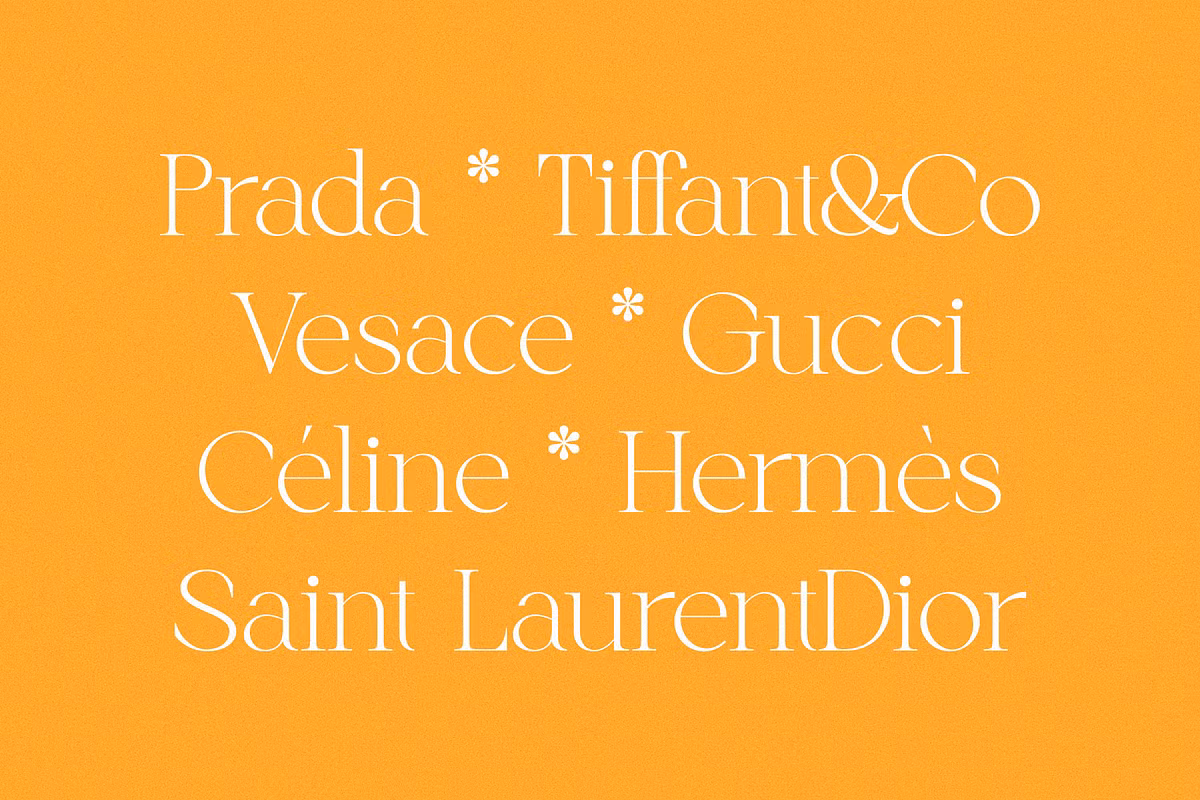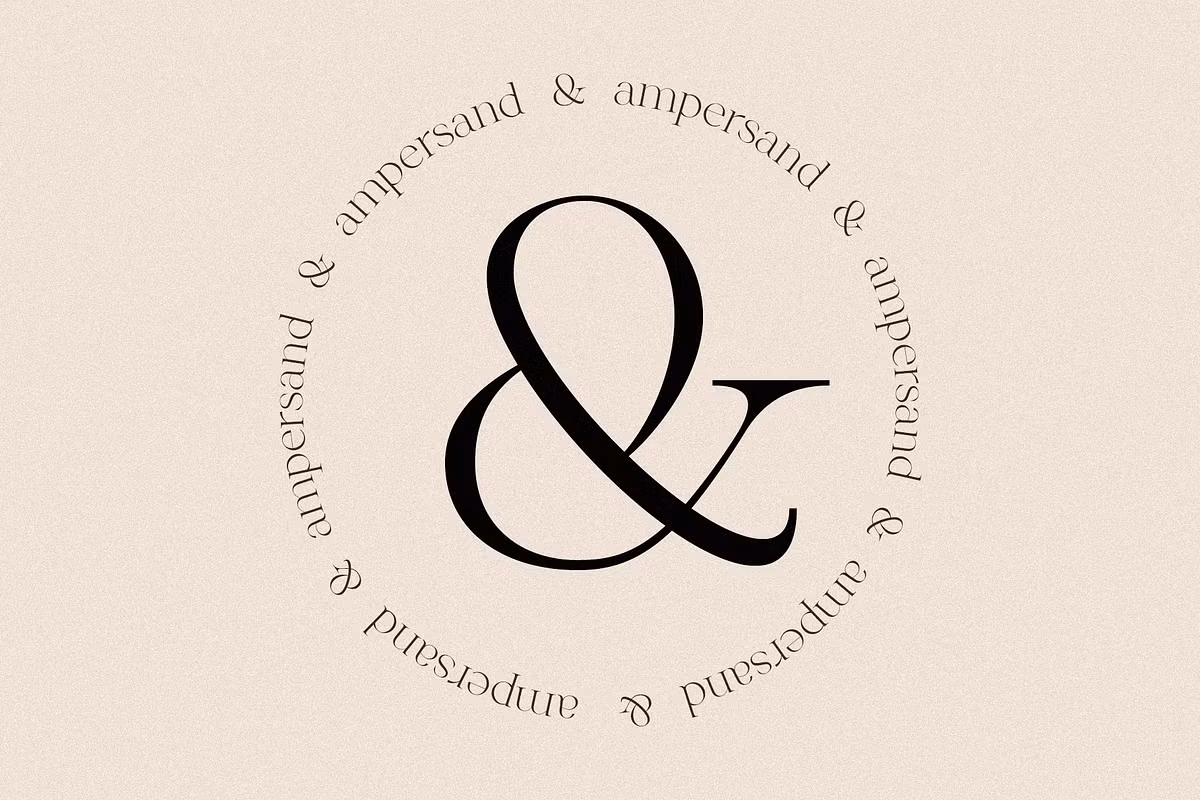
Seville: Elegant Editorial Serif Typeface for Modern Design
Seville - Summer Editorial Serif
Seville: Elegant Editorial Serif Typeface for Modern Design
Seville is a beautiful serif font that captures the feeling of warm summers and relaxed afternoons. It’s a classic design with a modern twist, making it perfect for lots of different projects. The font has a timeless quality to it, but it also feels fresh and new. This balance of old and new makes it a great choice for designers who want to add some elegance to their work. Whether you’re working on a magazine, a book, or a website, Seville is a versatile font that can help you create something truly special. Its unique blend of traditional and contemporary elements makes it stand out from other fonts, and its warm, inviting feel is sure to resonate with audiences. Overall, Seville is a refined and sophisticated font that’s perfect for anyone looking to add a touch of southern charm to their design.
Elegant serif font showcasing modern design elements
The elegant design of Seville enhances modern projects.
Design Style of Seville
The city of Seville’s design is notable for its bold strokes and striking serifs, which give it a sense of confidence and authority. This makes it a great choice for editorial work, as it grabs your attention without being overwhelming. At the same time, the gentle curves and lines in Seville’s design add a touch of warmth, making it easy to use in a variety of different contexts. Whether you’re working on a magazine, a book, or a website, Seville’s design is versatile enough to fit in seamlessly. Its unique blend of strong lines and soft curves creates a sense of balance and harmony, making it a great choice for anyone looking to add a touch of sophistication to their design. With its classic feel and modern twist, Seville’s design is sure to make a lasting impression.
Seville’s style is made even more beautiful by mixing old and new elements. This mix lets designers create a feeling of elegance without making the text hard to read. The font is great for projects that need a touch of emotion and personality, making it perfect for magazines, branding, and telling long stories. It’s a way to add romance and flair to your design, while still being easy to understand.
Character Sets and Glyphs
Seville is a great choice for designers because it has a wide range of characters that can be used in many different languages and design projects. It includes all the usual letters, numbers, and symbols, so you can use it for just about anything. What’s really impressive about Seville is that it has more than 300 glyphs, which gives designers a lot of flexibility and options to work with. This means that whether you’re working on a simple project or something more complex, Seville has the tools you need to create a unique and effective design. With its comprehensive character set and rich typographic possibilities, Seville is a versatile typeface that can meet the demands of a wide range of design applications.
Character sets and glyphs of the Seville typeface
Seville’s extensive glyph set enhances design flexibility.
Seville also has ligatures, which make your text look even more beautiful. These ligatures help make your designs look more polished and easier to read. Plus, Seville supports many languages, so it’s great for brands or publications that need to reach people all around the world. This means you can use Seville to create things that look amazing, no matter where your audience is from. With its elegant look and global reach, Seville is a fantastic choice for anyone who wants to make a good impression. Whether you’re working on a project that needs to appeal to people in different countries, or you just want to add some extra style to your text, Seville is a great option. Its ligatures and multilingual support make it a powerful tool for creating beautiful, effective designs.
Use Cases for Seville
Seville is particularly well-suited for a variety of design applications. Here are some prominent use cases:
• Magazines: Its elegant and sophisticated style makes Seville perfect for editorial layouts, where it can guide readers through engaging stories and captivating visuals.
• Branding: Brands that seek to convey a sense of refinement and approachability can benefit from Seville’s warm details and strong presence, making it ideal for logos and marketing materials.
• Long-Form Storytelling: For written content that requires a refined touch, such as books or online articles, Seville enhances the reading experience while maintaining clarity and engagement.
• Wedding and Event Invitations: The romantic and expressive qualities of Seville make it an excellent choice for formal invitations, where elegance is paramount.
Examples of Seville used in various design applications
Seville is versatile for magazines, branding, and invitations.
Pairing Suggestions for Seville
When it comes to typography, pairing fonts can significantly enhance your design’s overall aesthetic. Seville’s unique characteristics allow it to pair beautifully with a variety of other typefaces. Here are some suggestions:
• When you put Seville with a simple, sans-serif font like Montserrat or Lato, it looks really modern and classy. This mix of fonts creates a nice contrast that’s easy to read and also looks fancy. It’s a great way to make your text look good and be easy to understand at the same time.
• When you want to give your design a softer, more romantic feel, think about combining Seville with a script font like Great Vibes or Pacifico. This pairing can really make your invitations and branding projects stand out, adding a touch of elegance and personality. It’s a great way to add some extra flair and make your design more expressive.
• Geometric Fonts: Fonts like Futura or Avenir can complement Seville’s elegance while providing a modern edge, making it suitable for contemporary design layouts.
Seville typeface adds elegance and sophistication to designs.
Seville is not just a typeface, it’s a way to add elegance and sophistication to your designs. The way it’s made, with high-contrast strokes and warm details, makes it perfect for modern projects like magazines, branding, and storytelling. It has a lot of characters and can be paired with other fonts in many ways, which makes it a great choice for designers who want to make their work stand out. Seville is a classic, yet fresh option that can help you create beautiful designs. If you want a typeface that looks relaxed and sophisticated, you should definitely think about using Seville for your next project. It’s a great way to take your designs to the next level and make them look amazing. With Seville, you can create designs that are both modern and timeless, which is something that every designer strives for. So, if you’re looking for a typeface that can help you achieve this, Seville is definitely worth considering.